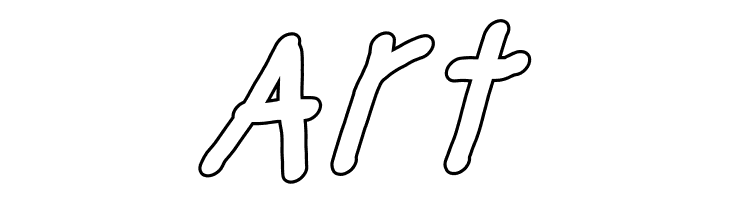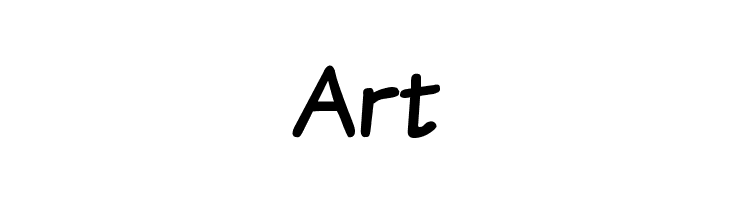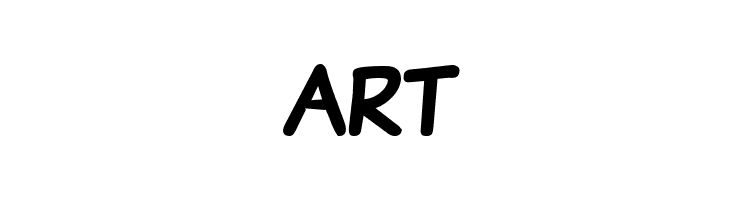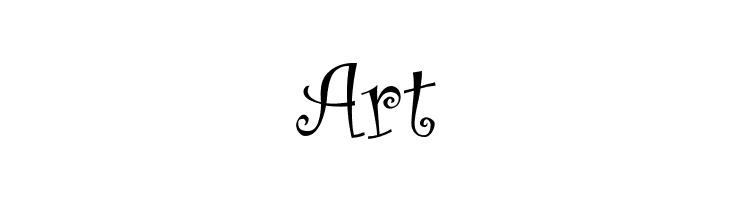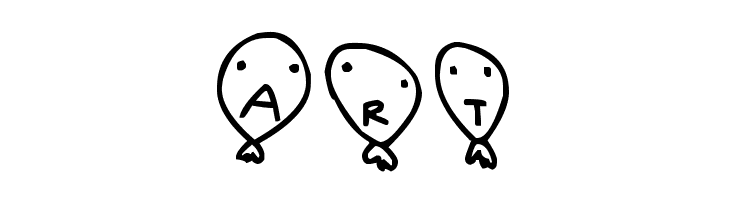
A playful, hand-drawn italic font with outlined characters.
A playful, hand-drawn font with rounded, bold characters and a casual style.
A bold, playful font with rounded, slanted characters.
A playful, handwritten italic font with a comic-like style.
A bold, comic-style font with a playful and informal design.
A whimsical, playful font with quirky serifs and lively embellishments.
A playful balloon-themed font with rounded, bubbly characters.
A playful, handwritten font with a casual and whimsical style.
A playful, chocolate-inspired font with bold, bubbly characters.
A playful handwritten font with a casual and friendly style.